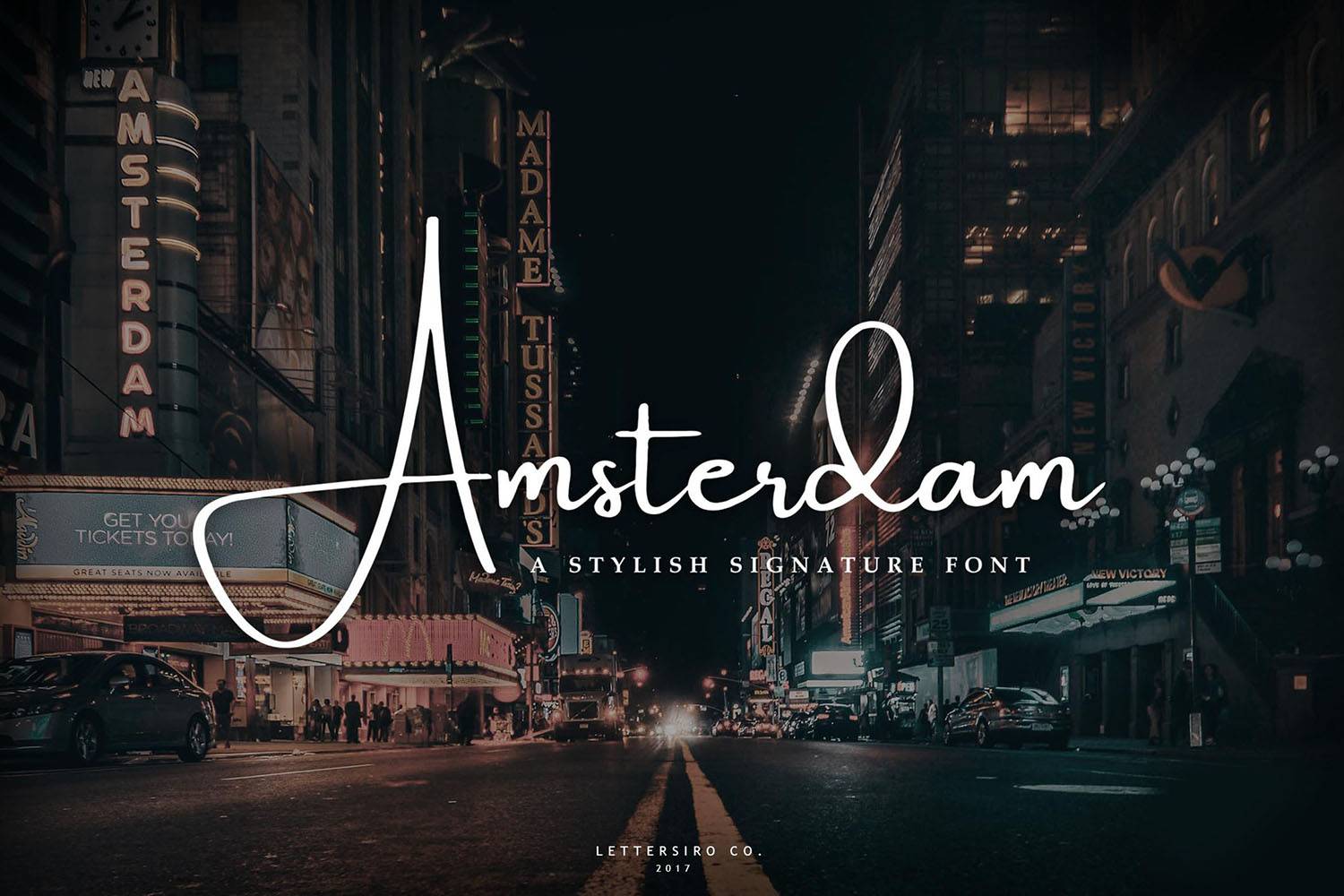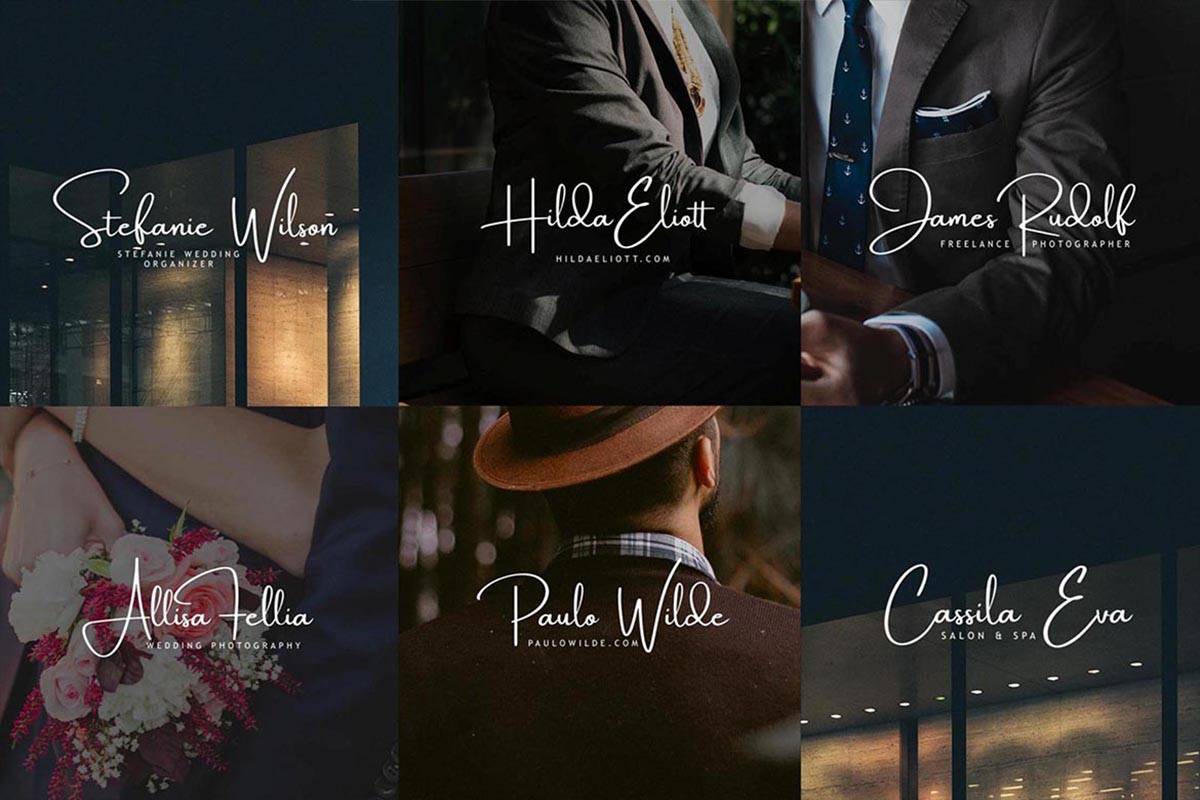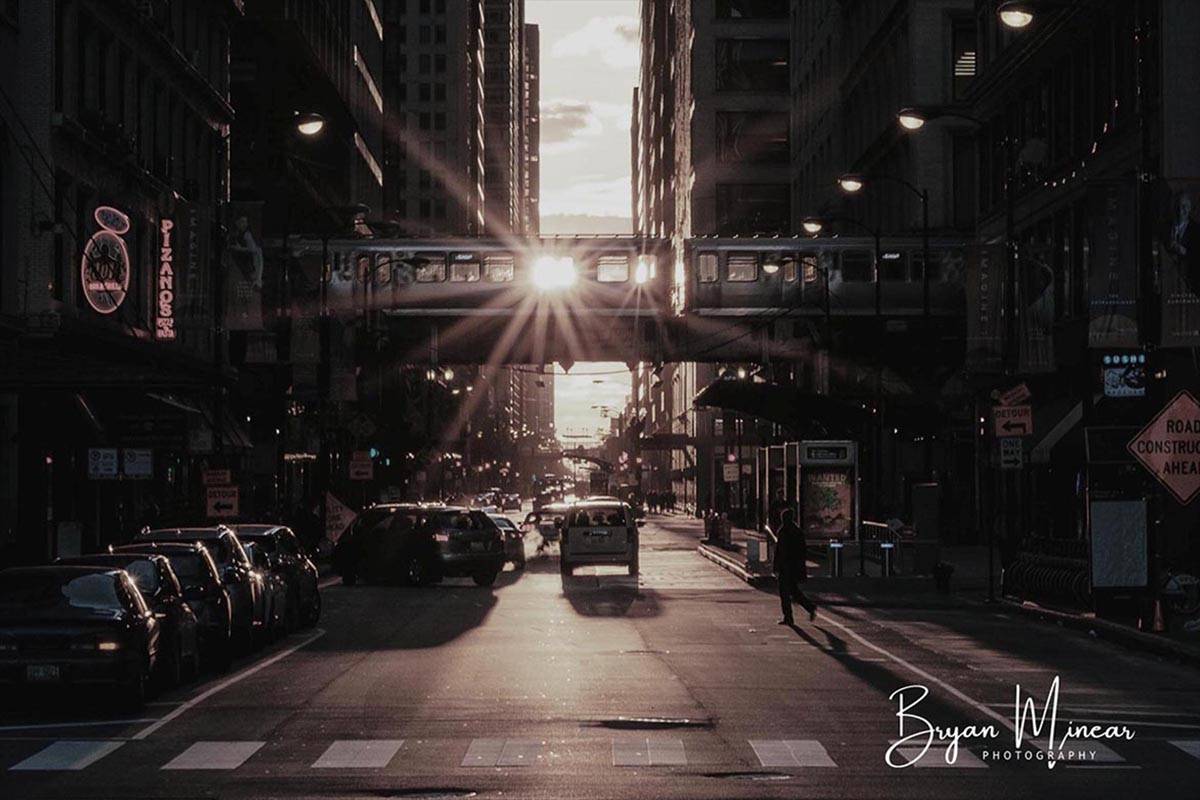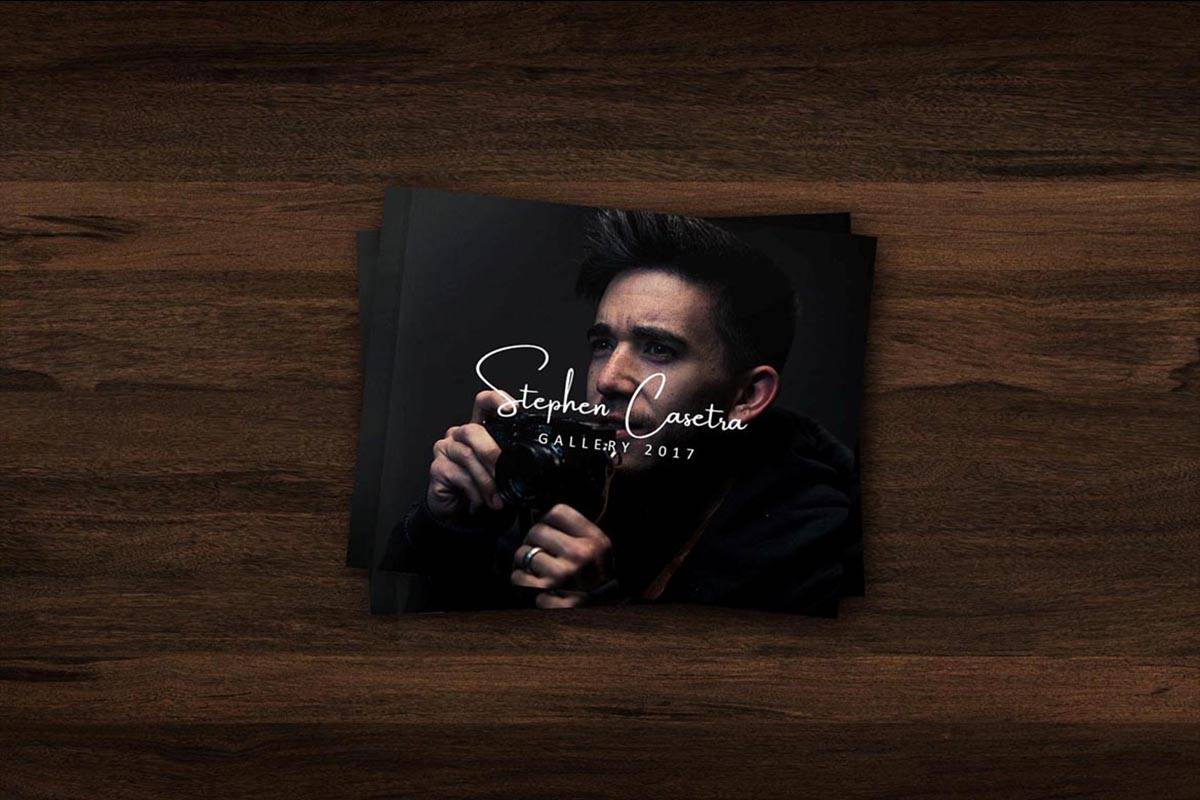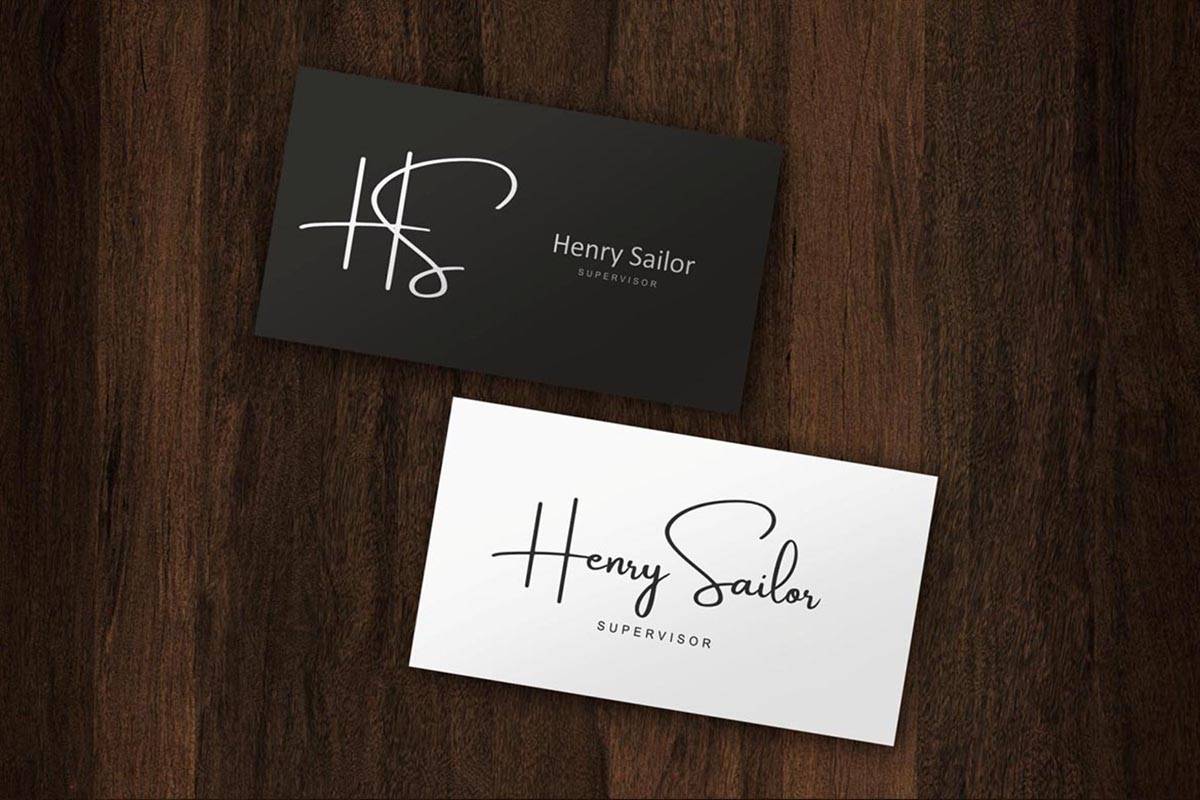
Amsterdam Font is a slender, elegant script typeface with a delicate handwritten feel, characterized by its tall, narrow letterforms and flowing, cursive strokes. Its fine lines and artistic style make it perfect for sophisticated branding, invitations, and creative projects that seek a graceful and personal touch. This font works best in headlines, logos, and decorative uses where a light, refined impression is desired.
Amsterdam Font
About Amsterdam Font
| Font family | Amsterdam Font |
| Designer | Lettersiro 2017 |